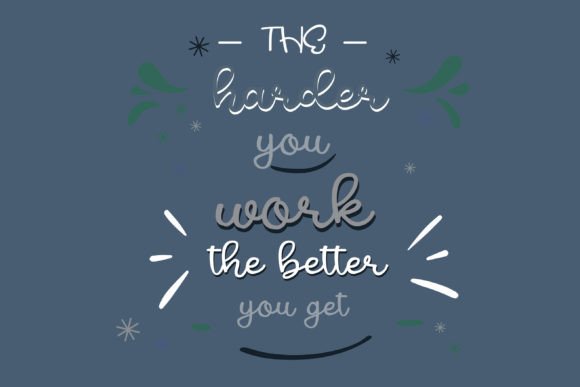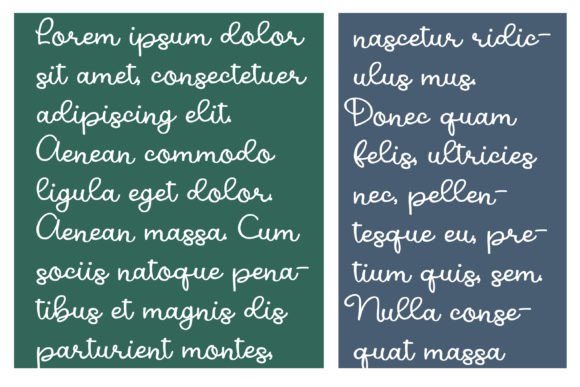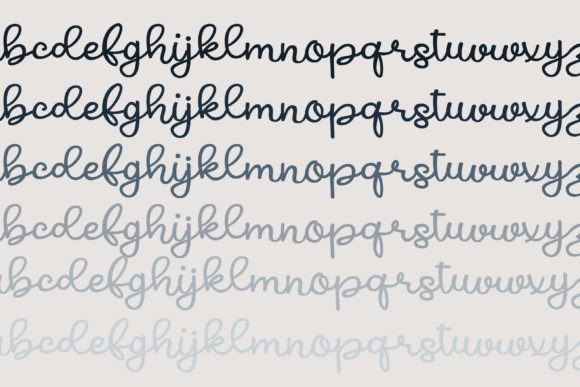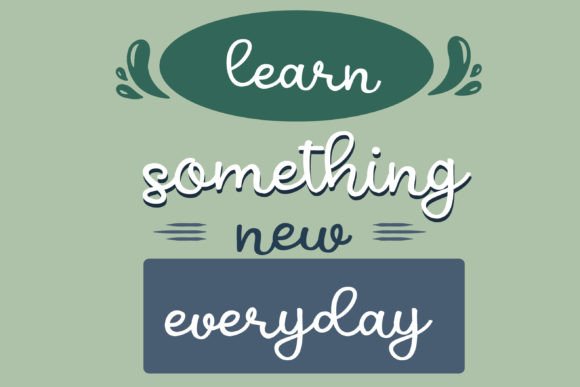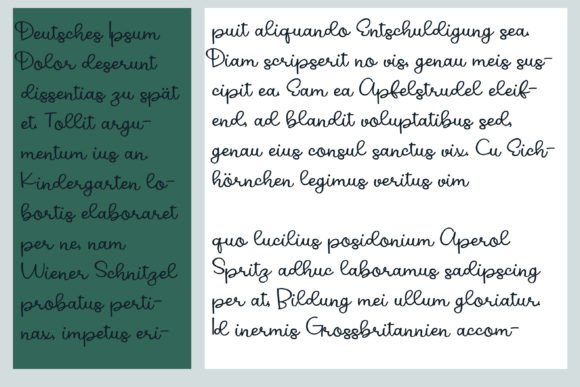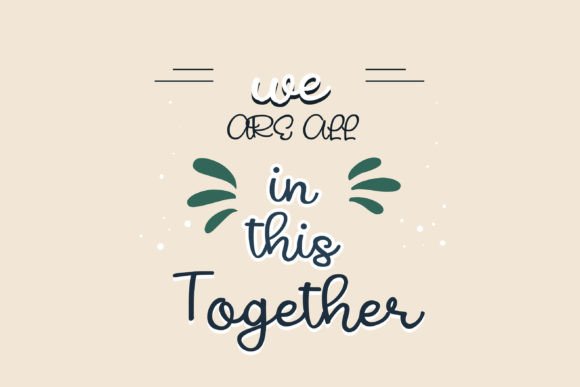
A Touch of Whimsy in Every Line
Have you ever found yourself lost in the world of handwritten fonts, searching for the perfect one to give your designs a personal touch? I know I have. And then, it hits you – that perfect combination of elegance and playfulness that makes your project truly stand out. For me, it was the discovery of the Aphorism Font, a hand-crafted cursive font that adds a touch of whimsy to every line.
With its bouncy baseline and three weights to choose from, the Aphorism Font is the perfect addition to any designer’s toolkit. Whether you’re working on an invitation, greeting card, or simply looking to add a bit of personality to your branding, this font is sure to bring a smile to your face. As a designer, you know how valuable a good handwritten font can be – and the Aphorism Font is no exception.
Aphorism Font Key Features
- Font Family: Aphorism is a high-quality, professional font family designed for various applications, including books, magazines, and corporate materials.
- Size and Resolution: Designed to work well at various sizes, from 12pt to 24pt, and resolutions up to 300 DPI, making it suitable for both digital and print materials.
- Unique Characteristics: Features a unique blend of modern and traditional elements, with subtle nuances that evoke a sense of sophistication and elegance.
- Language Support: Supports a wide range of languages, including Latin, Greek, and Cyrillic scripts, making it a versatile choice for global projects.
Aphorism Font Review
Aphorism Font is an elegant and sophisticated font that can elevate any design project. ✨ Its refined lines and subtle curves create a sense of luxury and sophistication, making it perfect for high-end branding and editorial content. ✨ The font’s readability is also impressive, with clear letterforms and ample spacing between characters.
However, there are some limitations to consider. ⚠️ The font’s aesthetic may come across as too formal or stuffy for more casual projects, and the lack of bold weights may limit its versatility in certain design contexts. ⚠️ Additionally, the font’s intricate details may not be suitable for small text sizes or low-resolution applications.
Here are some key pros and cons:
- ✨ Elegant and sophisticated aesthetic
- ✨ High readability and clear letterforms
- ⚠️ May be too formal for casual projects
- ⚠️ Limited bold weight options
- ⚠️ May not be suitable for small text sizes or low-resolution applications
Overall, Aphorism Font is a solid choice for designers looking to create high-end, sophisticated designs. While it may not be suitable for every project, its refined aesthetic and excellent readability make it a great addition to any design toolkit.
Tips: Use Aphorism Font for quotes, captions, and headings to add a touch of elegance and sophistication to your designs.
Tips: Use Aphorism Font to create intricate typography and add depth to your designs.
Tips: Use Aphorism Font to add a touch of sophistication to your presentations and documents.
Aphorism Font is ideal for:
- Quote graphics and social media posts
- Book covers and author bios
Alternatives to Aphorism Font
Lato is a sans-serif font that offers a modern and clean look. It is suitable for various design projects, including corporate identities, websites, and mobile applications. Lato has a more neutral and subtle feel compared to Aphorism Font, which has a stronger emphasis on elegance and sophistication. Use Lato when you need a versatile font that works well in a variety of contexts.
Montserrat is a sans-serif font designed specifically for digital use. It features a geometric structure and a modern aesthetic, making it suitable for urban and tech-related projects. Montserrat is more geometric and bold compared to Aphorism Font, which has a more elegant and refined look. Use Montserrat when you need a font that conveys a sense of modernity and urbanity.